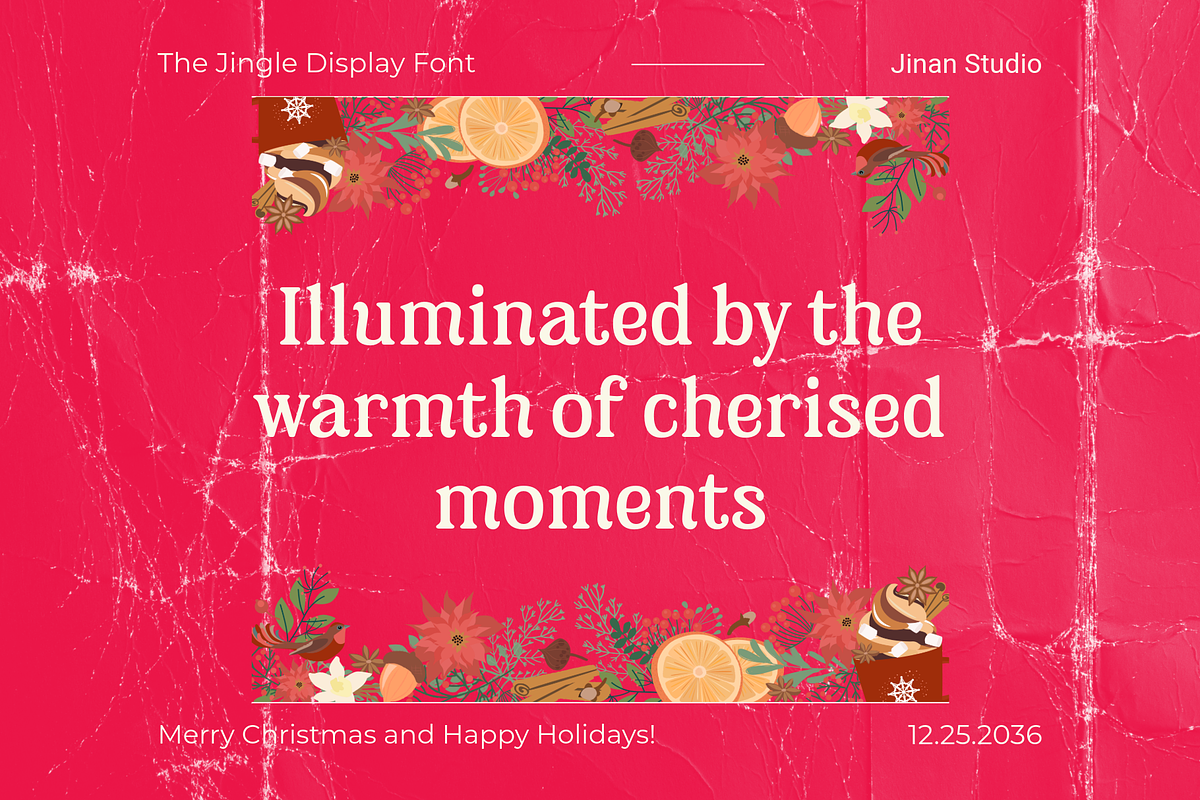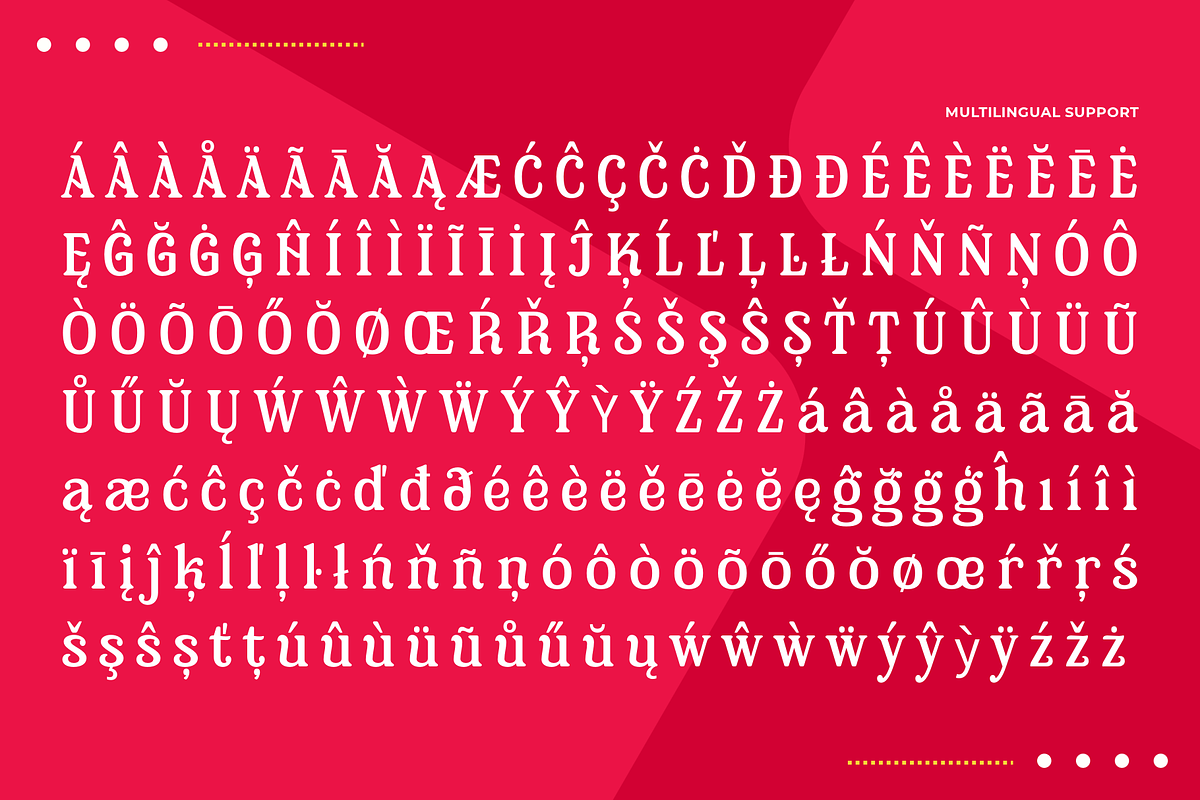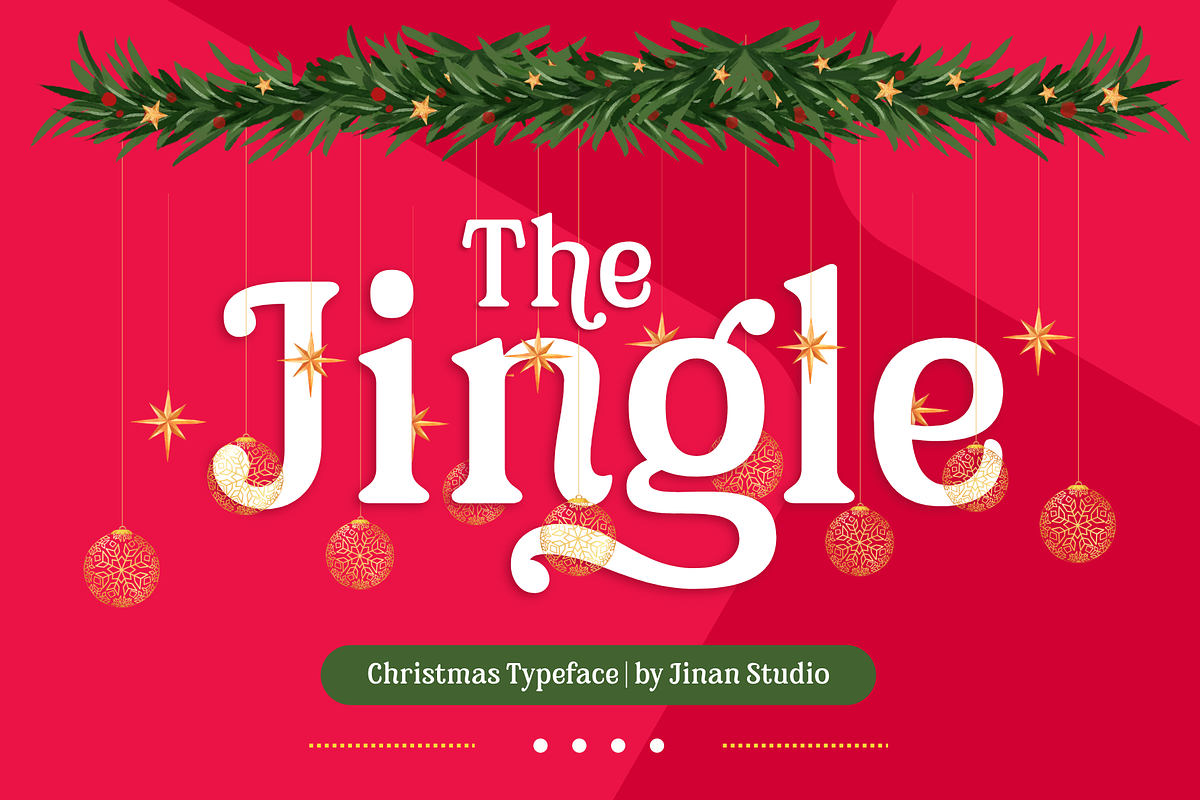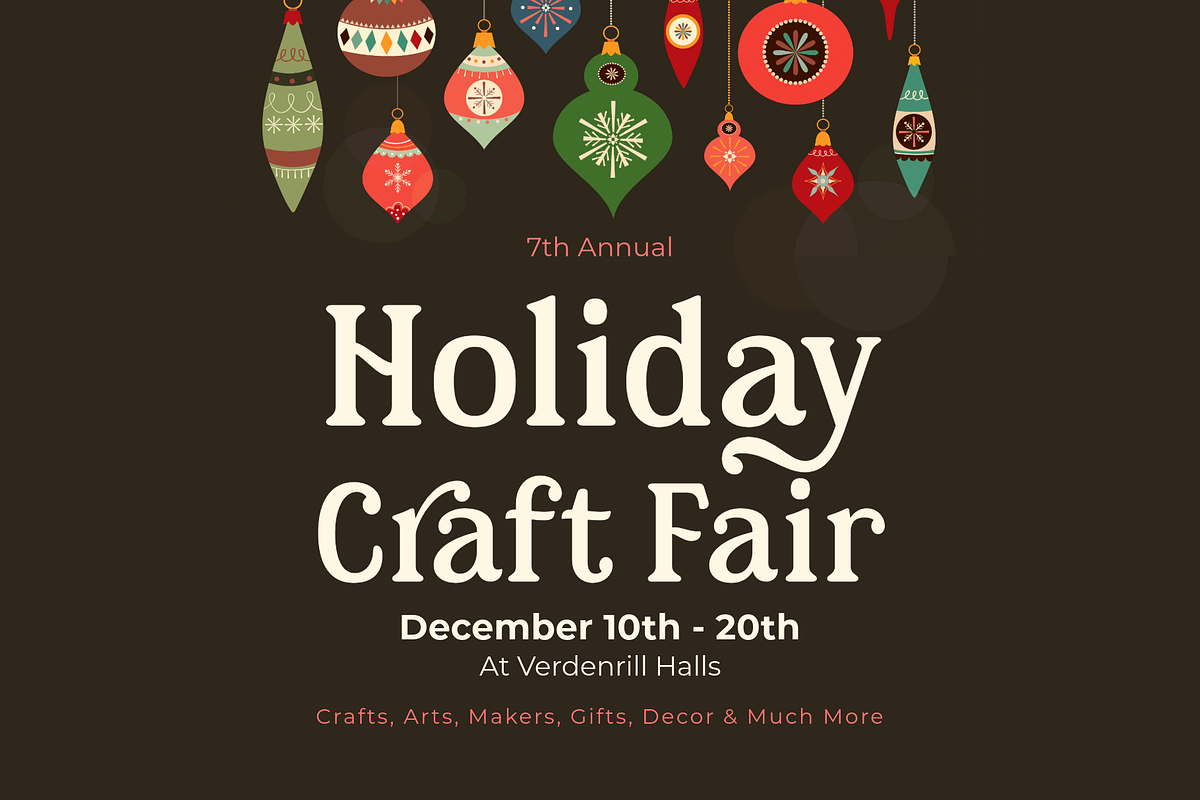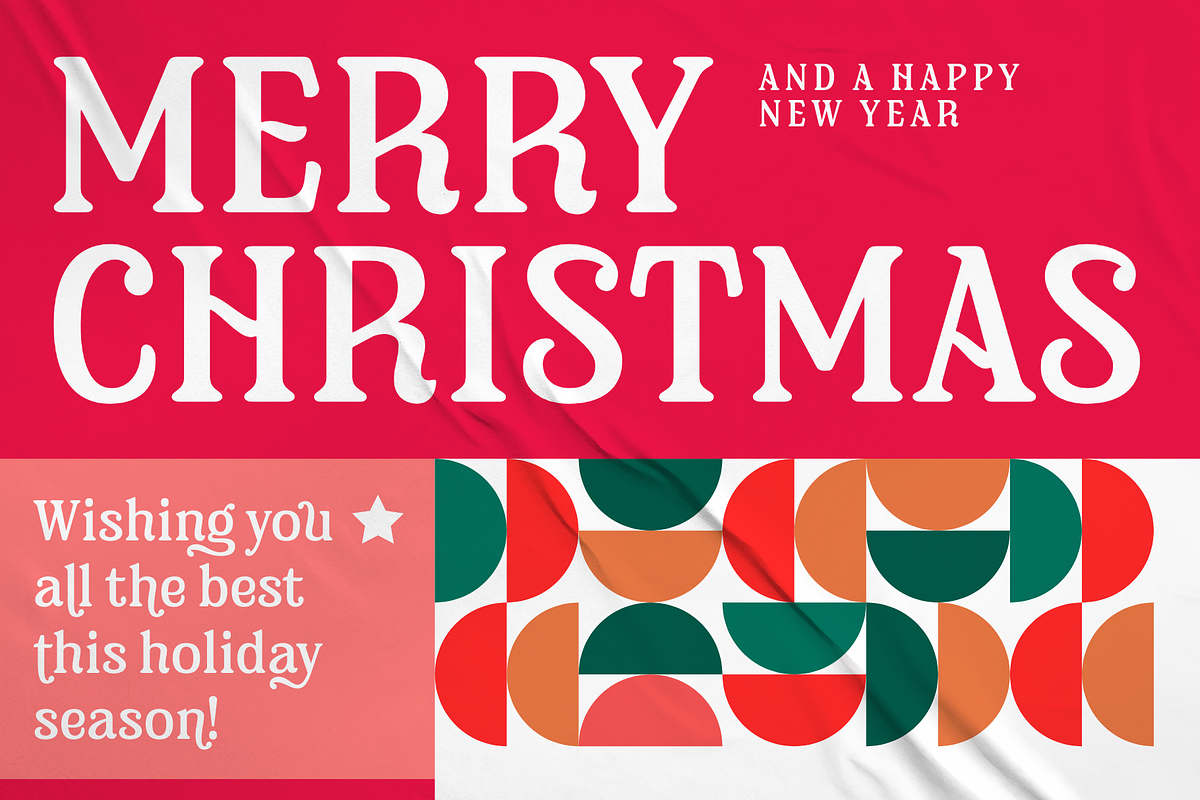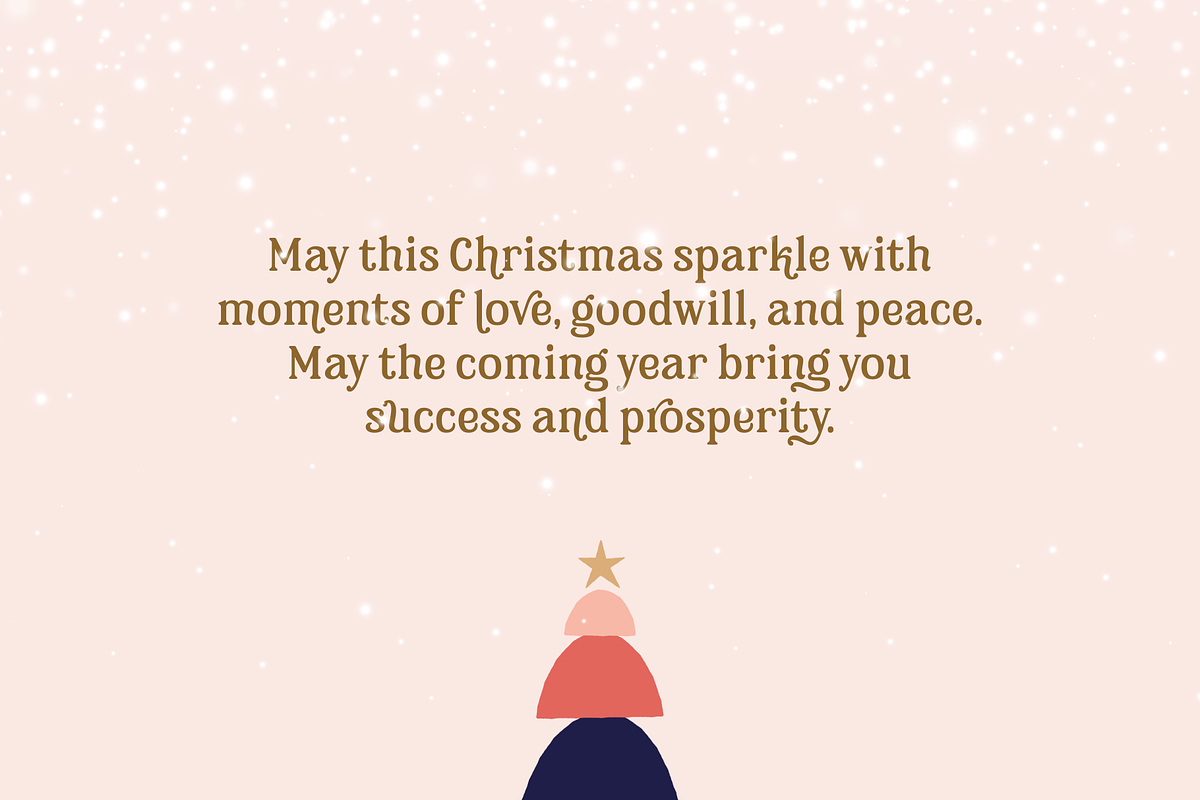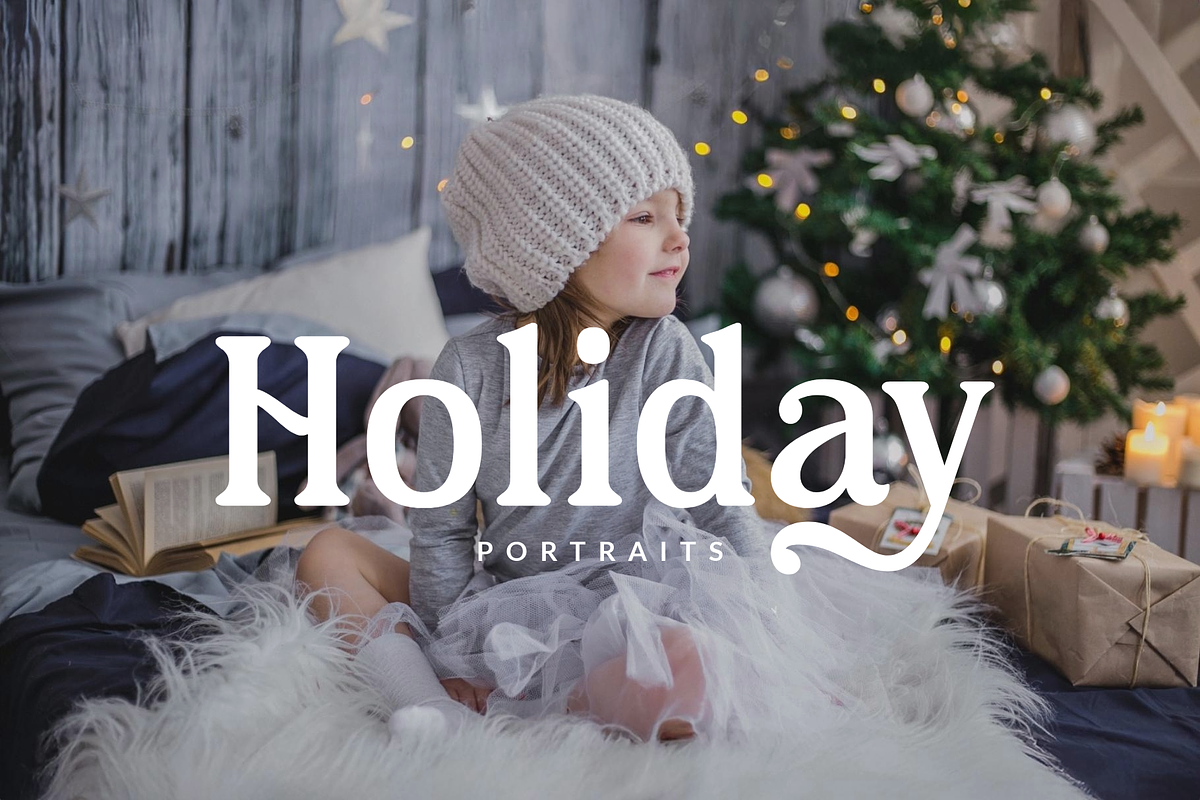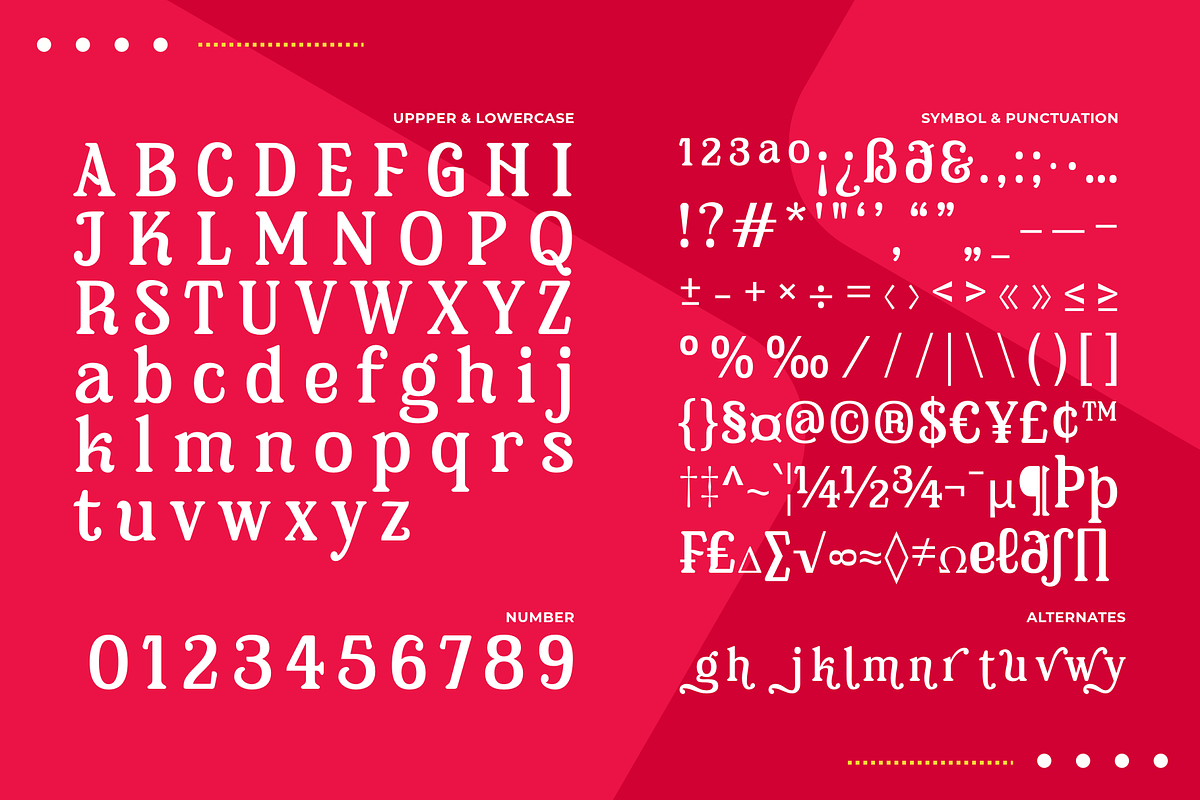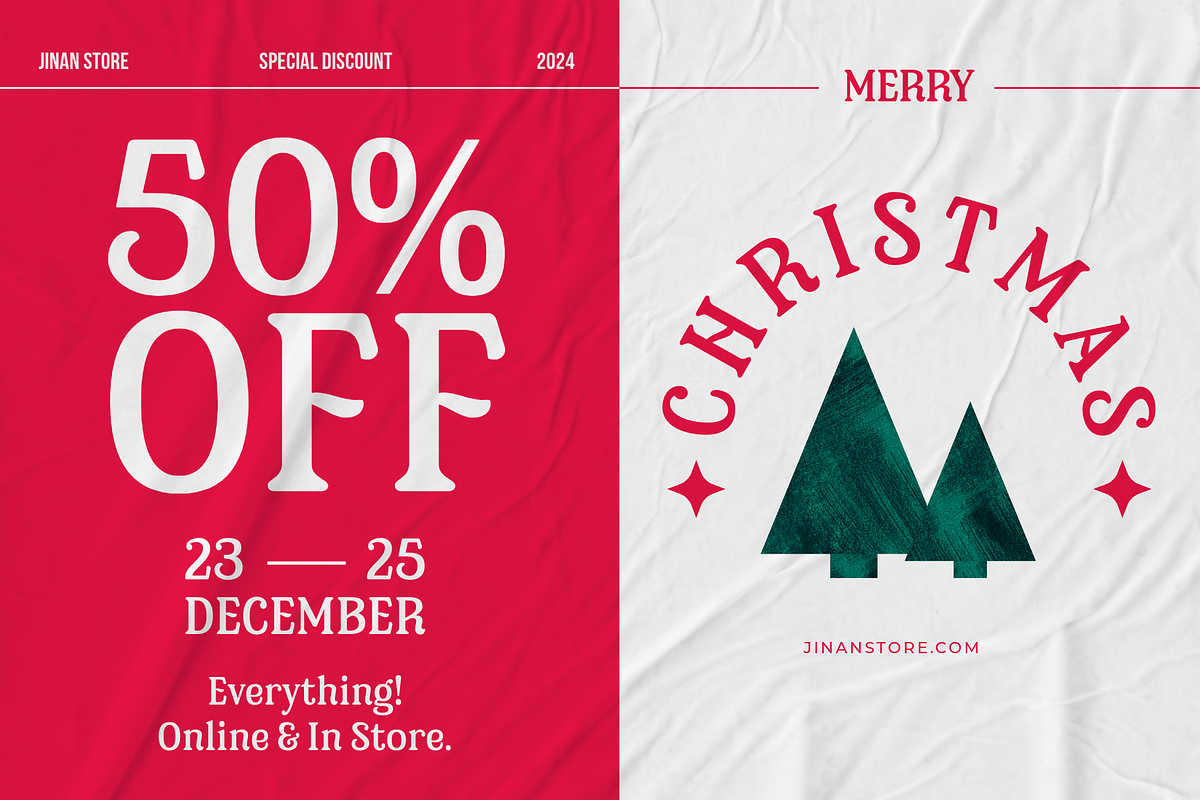
The Jingle - Christmas Typeface
The Jingle is a decorative Christmas font that perfectly blends tradition and whimsy. Designed to capture the joy and warmth of the holiday season, its bold serif style is infused with soft, playful curves and subtle vintage charm. This font is ideal for Christmas cards, gift tags, holiday branding, posters, and seasonal campaigns that need an extra touch of festive magic.
With unique swashes and eye-catching details, The Jingle Typeface stands out like a joyful carol, making your message truly shine. Designed for versatility, it pairs beautifully with script fonts for a more elegant holiday look.
- A set of uppercase and lowercase glyphs
- Number, symbol, and punctuation
- Alternates and Ligatures